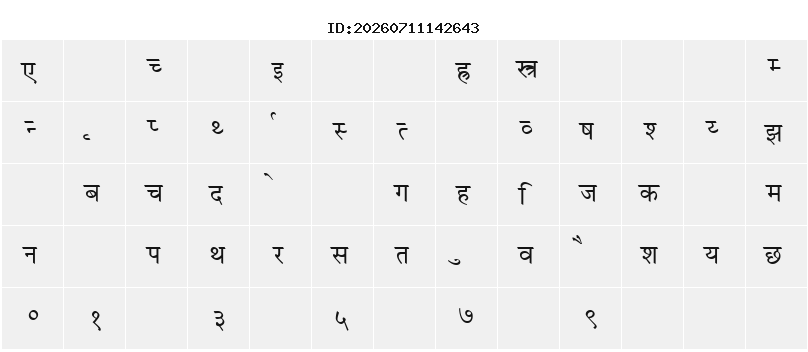
Marathi Vijay Demo Preview
• Font Name: Marathi Vijay Demo
• Full Font Name: Marathi Vijay Demo
About Marathi Vijay Demo.ttf
Marathi Vijay Demo.ttf is a modern, elegant sans-serif font designed for ultimate readability and visual harmony. Perfect for branding, headlines, web design, and print materials.